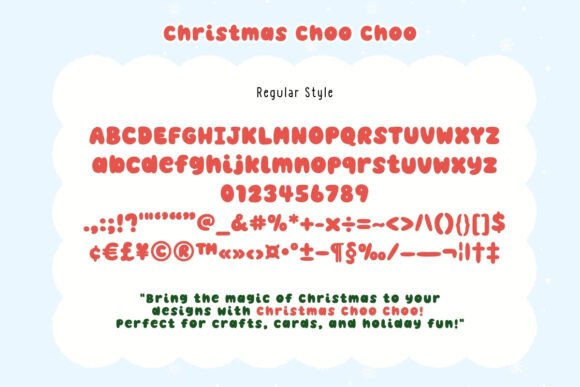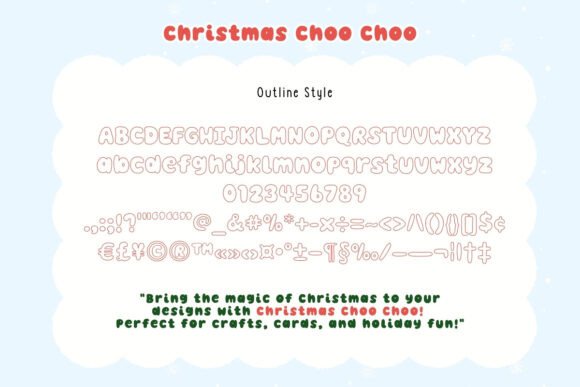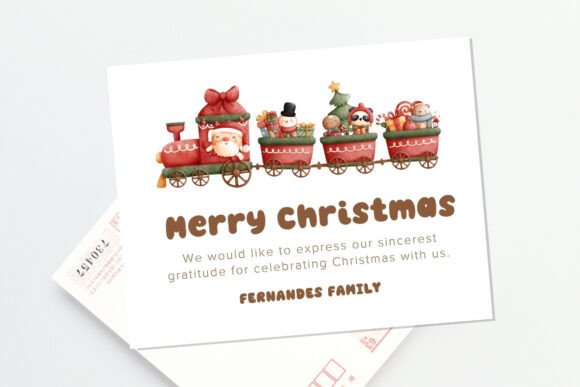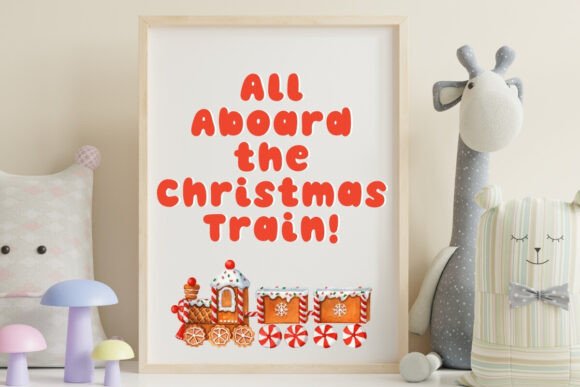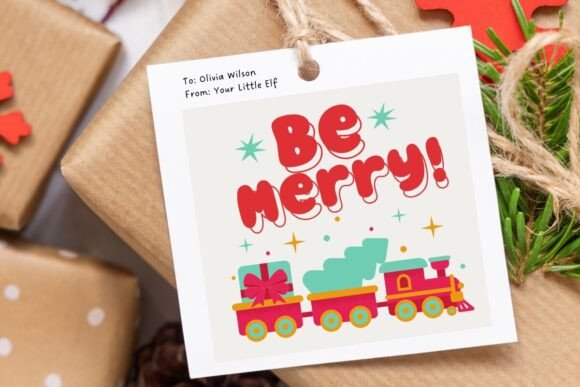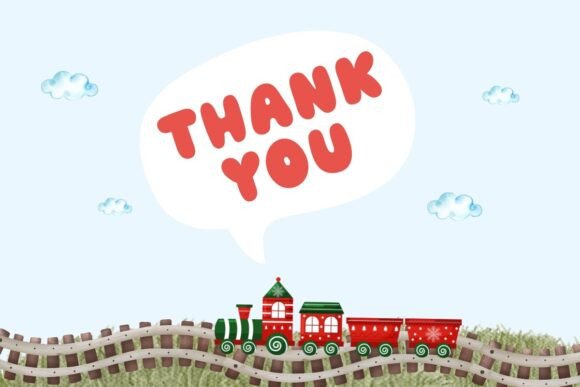
Introduction to Christmas Choo Choo Font
Christmas Choo Choo is a bubbly and cheerful handwritten kids font perfect for adding charm to your holiday designs.
Its playful style is ideal for Christmas cards, crafts, gift tags, classroom materials, and festive printables Whether youโre creating whimsical projects or magical decorations, this font will bring joy and creativity to your designs.
Key Features of Christmas Choo Choo Font
Why Choose Christmas Choo Choo Font?
Christmas Choo Choo Font offers exceptional quality and versatility, making it a valuable addition to your design toolkit. Whether you’re creating for personal projects or commercial use, Christmas Choo Choo Font delivers professional results.